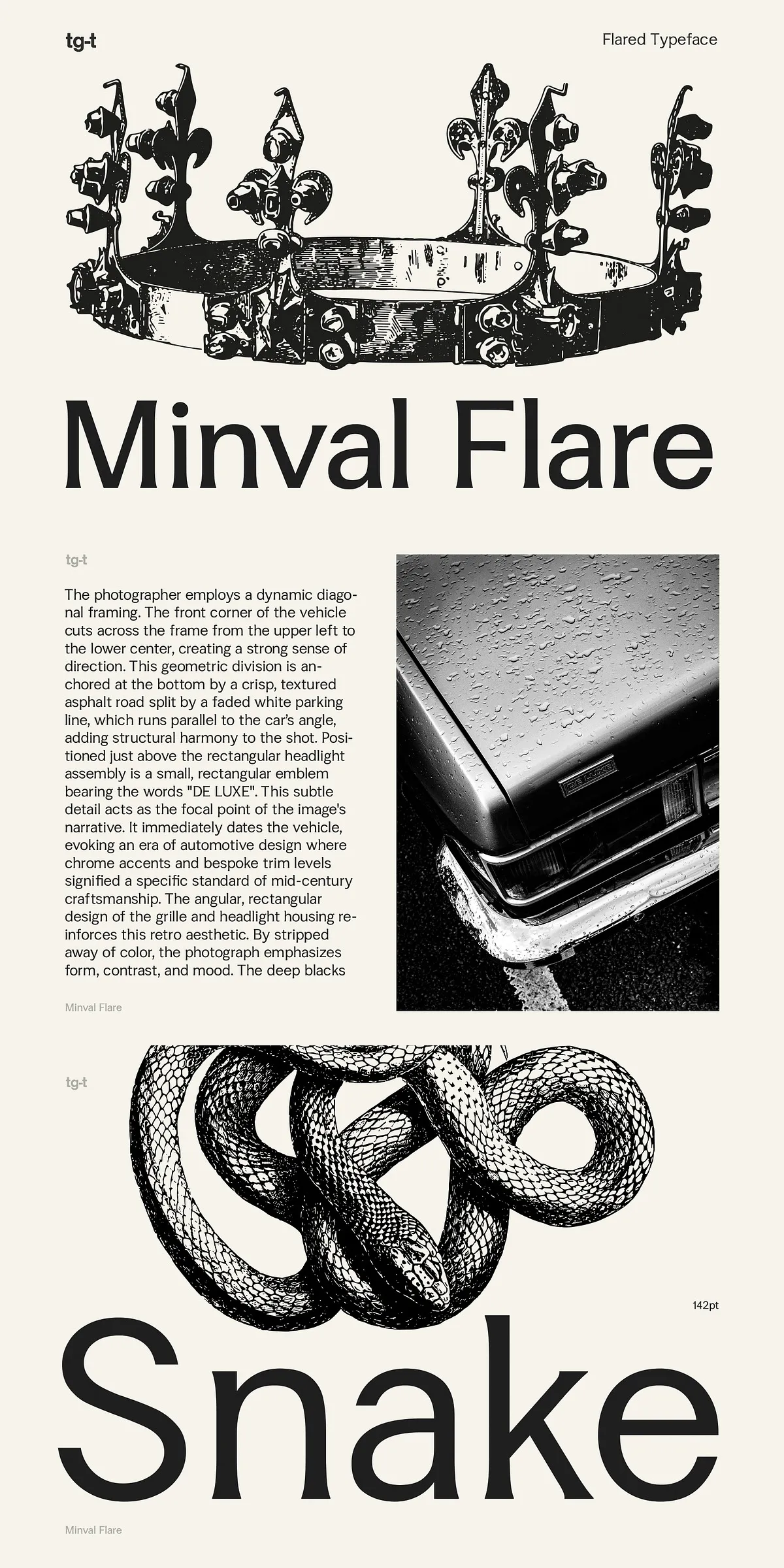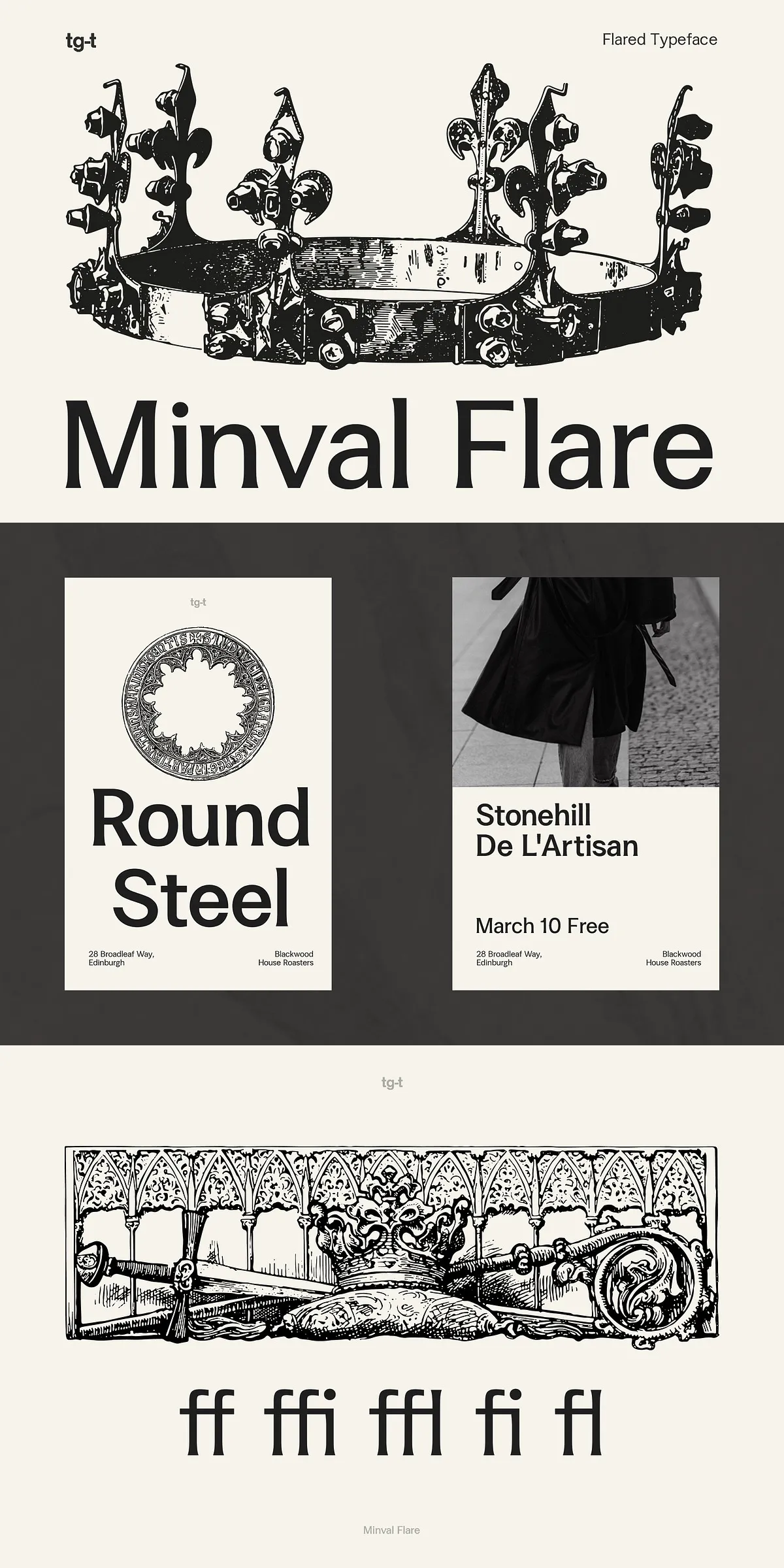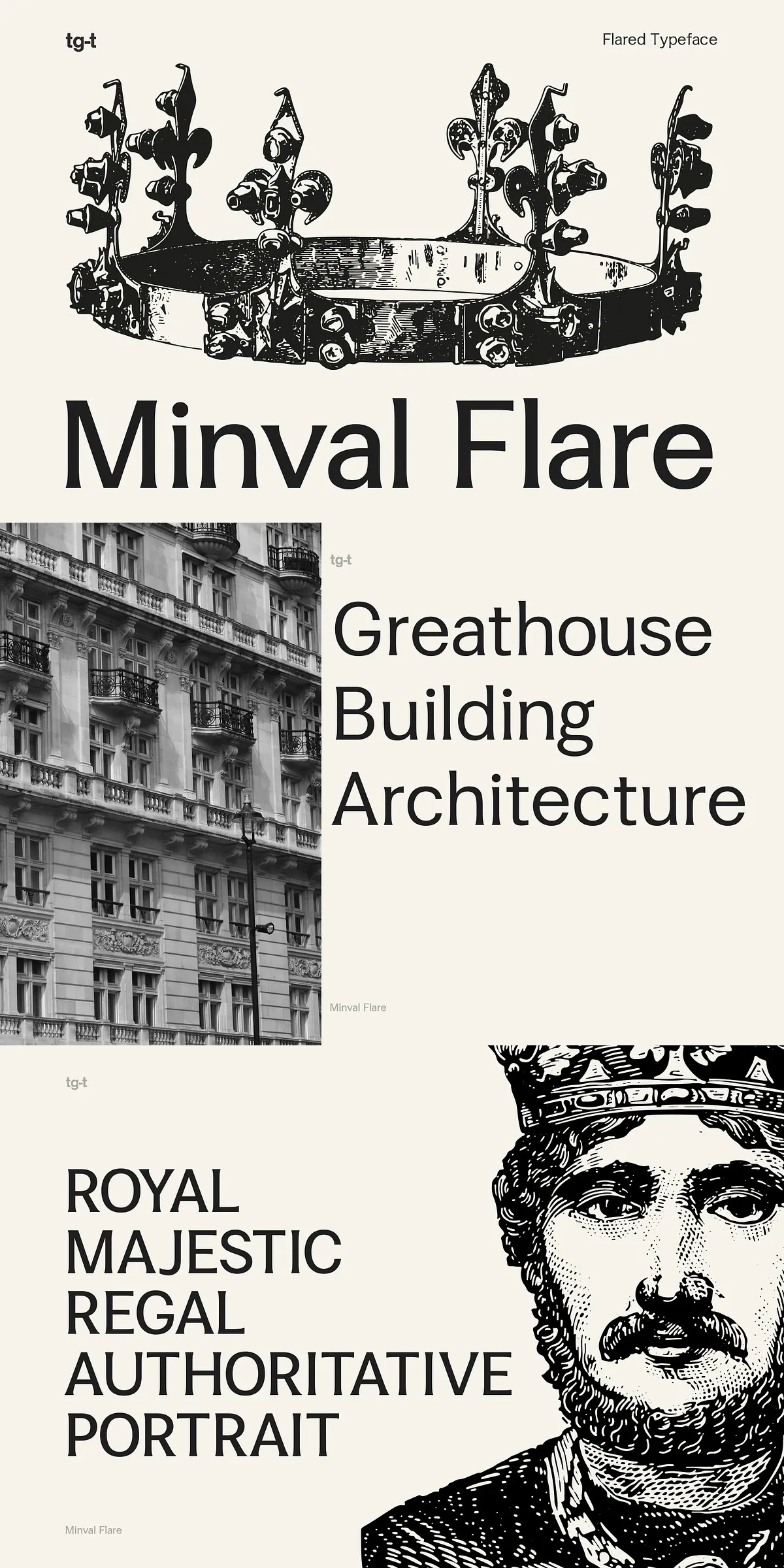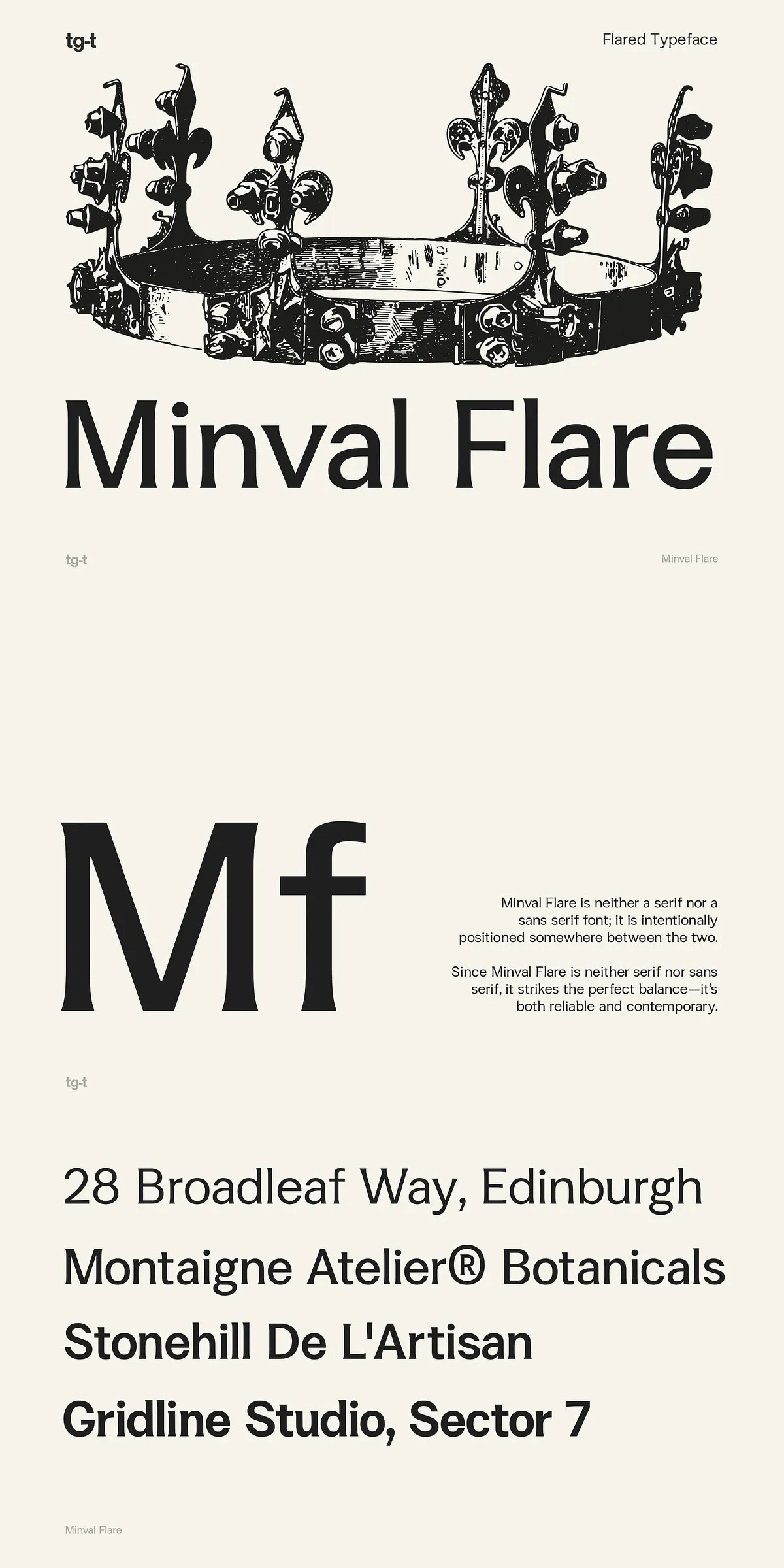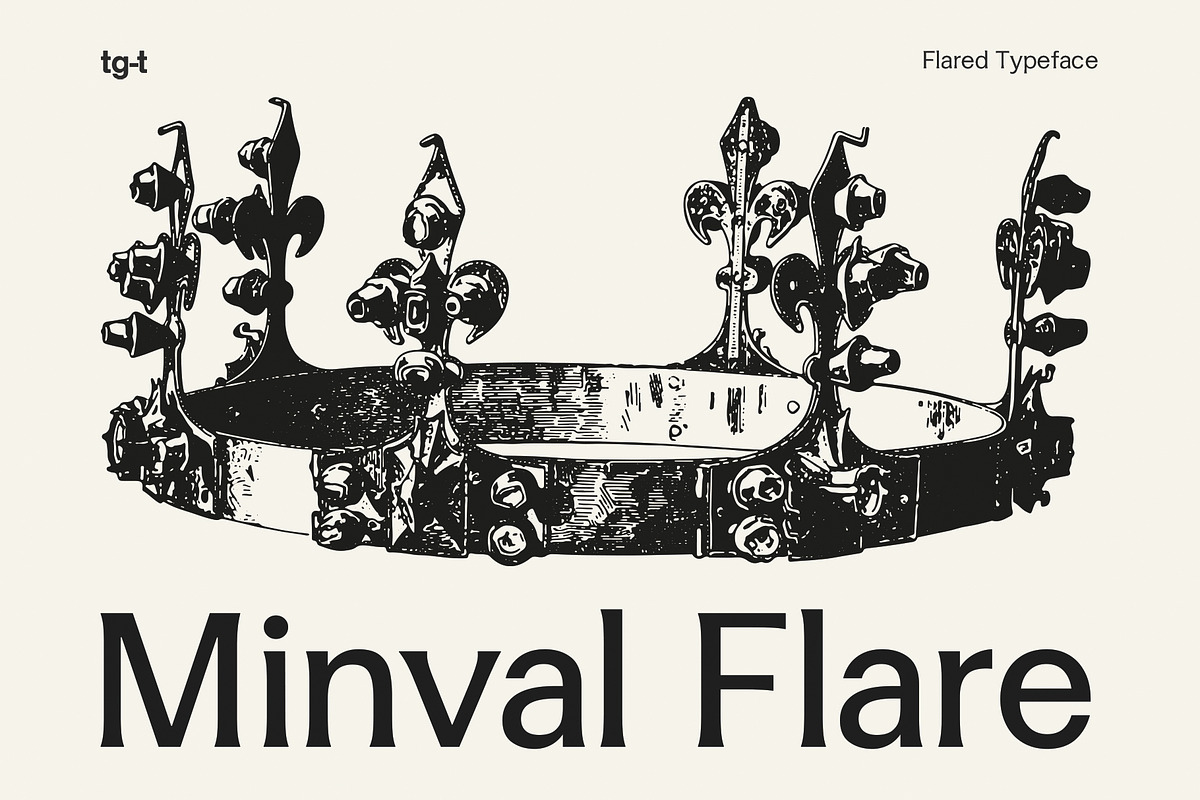
Minval Flare delivers a confident typographic voice that blends clean, contemporary proportions with subtle flared terminals. The design emphasizes readability while projecting a distinctive, upscale personality. Designers will find Minval Flare both restrained and expressive: its refined stroke endings add visual character without sacrificing clarity. Use it to create headlines that command attention and body copy that reads smoothly across print and digital environments.
Variable font technology that expands creative control
Built as a Variable Font, Minval Flare enables designers to animate weight changes, fine-tune contrast, and create micro-hierarchy with smooth transitions from Regular to Bold. The variable axis reduces the need for multiple discrete font files and keeps projects lightweight. Because the family adapts fluidly across weights, you can craft consistent typographic systems for responsive websites, editorial grids, and multi-platform brand identities without compromising visual harmony.
Where Minval Flare performs best in real projects
Minval Flare excels across a broad set of premium applications. It elevates luxury branding and fashion identity systems, sharpens editorial layouts for magazines and longform content, and refines high-end packaging for beauty and lifestyle products. The typeface functions equally well for logotypes, hero headlines, subheads, and extended body text, providing a unified voice across collateral, websites, and social presence.
Perfect for logo design and headline-focused identity
When you need a wordmark that balances classical presence and modern detail, Minval Flare gives you distinct letterforms and flared terminals that translate into memorable logos. Use heavier weights for logotypes and display headlines, and leverage the variable axis to adjust weight subtly for different media contexts. The result: consistent brand equity across print, signage, and digital touchpoints.
Design guidance and pairing recommendations for stronger systems
Pair Minval Flare with a neutral sans-serif for supporting body copy when you want maximum legibility and a modern aesthetic. For editorial systems, use Minval Flare for headings and subheads while reserving a low-contrast grotesque or humanist sans for long reads. In packaging, apply heavier weights for marks and lighter weights for descriptive copy to maintain visual hierarchy and texture.
Practical tips for print and digital production
- For large-format print, slightly increase tracking to preserve the rhythm created by flared terminals.
- When creating logotypes, test the flared terminals at various sizes to avoid unwanted collisions; adjust kerning as needed for balance.
- Use OpenType features to harmonize numeral sets and stylistic alternates across brand touchpoints.
Why design teams will choose Minval Flare for premium projects
Minval Flare combines technical flexibility with elegant forms. Its variable architecture streamlines asset management while offering nuanced control over weight and presence. The flared terminals impart a signature aesthetic that elevates luxury brands, editorial layouts, and creative portfolios. Whether you’re building a refined logo, designing a fashion spread, or implementing a responsive website, Minval Flare adapts reliably and enhances perceived quality through thoughtful details and strong legibility.